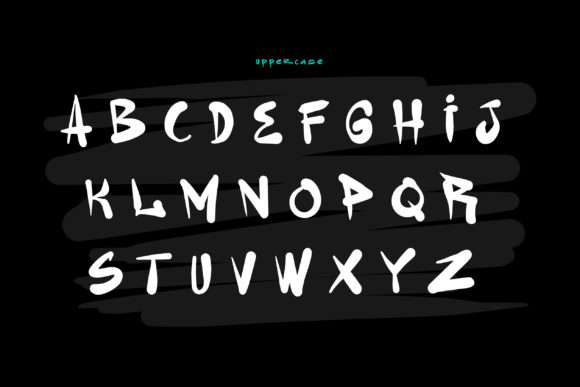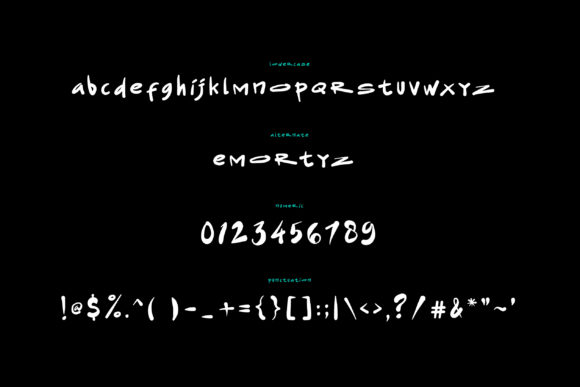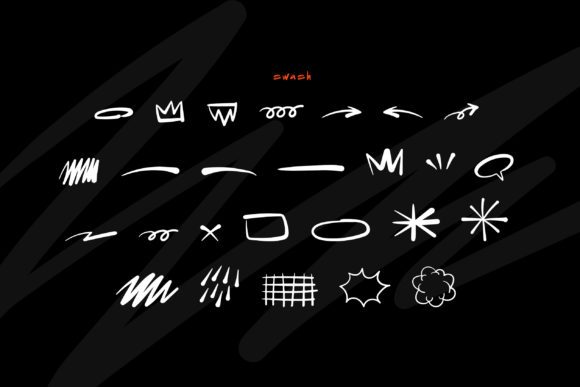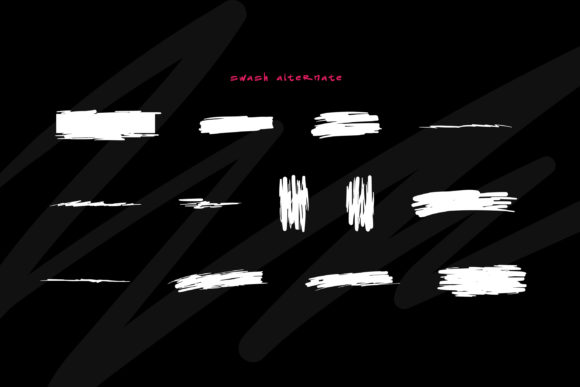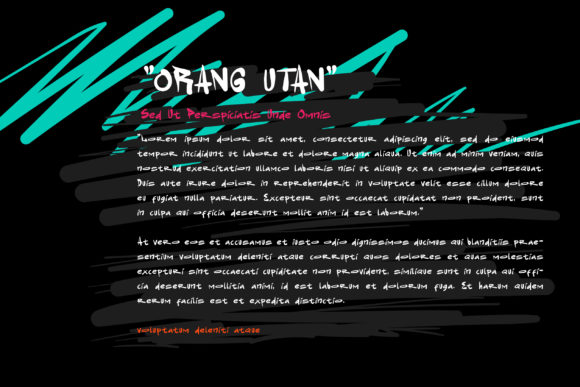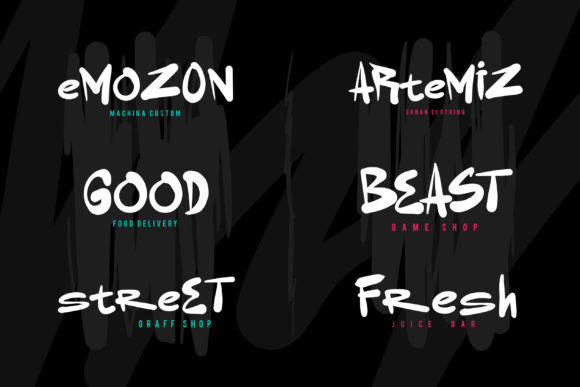
The Gerilyaz Font: A Creative Powerhouse
I’ll never forget the moment I stumbled upon the Gerilyaz font. I was working on a project for a client who needed a unique display font that could bring their brand to life. I had been searching for hours, trying out different fonts, but nothing seemed quite right. That was until I saw Gerilyaz – its quirky, yet elegant design immediately caught my eye. I knew right then and there that it was the perfect fit.
So, what makes Gerilyaz so special? Let’s dive into the good stuff and a few quirks I’ve discovered.
- ✨ Versatility: Gerilyaz is incredibly versatile. It can be used for a wide range of designs, from bold and dramatic to subtle and elegant.
- ✅ Unique Character: This font has a distinct personality that sets it apart from more traditional fonts.
- 💡 Inspirational: Gerilyaz has a way of sparking creativity. It’s the perfect font to use when you want to add a touch of inspiration to your designs.
While Gerilyaz is an amazing font, there are a few things to keep in mind:
- 🤔 Legibility at Small Sizes: Like many display fonts, Gerilyaz can be a bit tricky to read at smaller sizes. It’s best used for headlines or titles rather than body text.
- ⚠️ Limited Use in Formal Designs: Due to its unique and playful nature, Gerilyaz might not be the best fit for very formal or traditional designs.
Exploring OpenType Features, Glyphs, and Stylistic Alternates
One of the exciting features of Gerilyaz is its support for OpenType features, glyphs, and stylistic alternates. These features allow you to customize your text and make it even more unique. For example, you can:
- Access stylistic alternates to give your text a more personalized look.
- Use glyphs to add decorative elements to your text.
- Take advantage of OpenType features like ligatures and swashes to add more flair to your designs.
The Backstory of Gerilyaz
Gerilyaz was created with the intention of providing a unique and versatile font for designers. Its designer aimed to craft a font that could easily adapt to various design needs, from playful and whimsical to elegant and sophisticated. The result is a font that has quickly become a favorite among creatives.
Q: What makes Gerilyaz a good choice for my design project?
A: Gerilyaz offers a unique blend of versatility and personality, making it suitable for a wide range of projects, from playful and creative to more elegant and sophisticated designs.
Q: Is Gerilyaz difficult to read?
A: Like many display fonts, Gerilyaz is best used for headlines or titles. It may be less suitable for body text, especially at smaller sizes, due to its unique design.